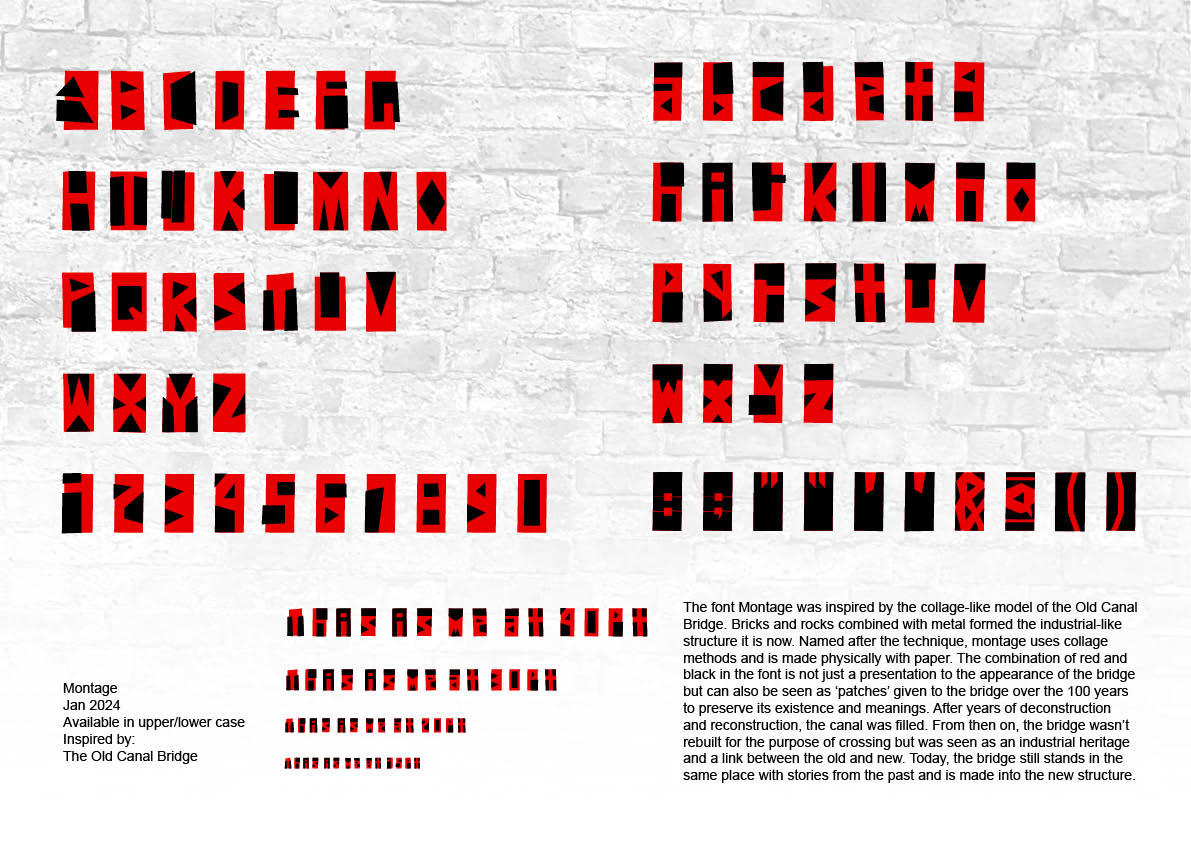
The font Montage was inspired by the collage-like model of the Old Canal Bridge. Bricks and rocks combined with metal formed the industrial-like structure it is now. Named after the technique, montage uses collage methods and is made physically with paper. The combination of red and black in the font is not just a presentation to the appearance of the bridge but can also be seen as 'patches' given to the bridge over the 100 years to preserve its existence and meanings. After years of deconstruction and reconstruction, the canal was filled. From then on, the bridge wasn’t rebuilt for the purpose of crossing but was seen as an industrial heritage and a link between the old and new. Today, the bridge still stands in the same place with stories from the past and is made into the new structure.